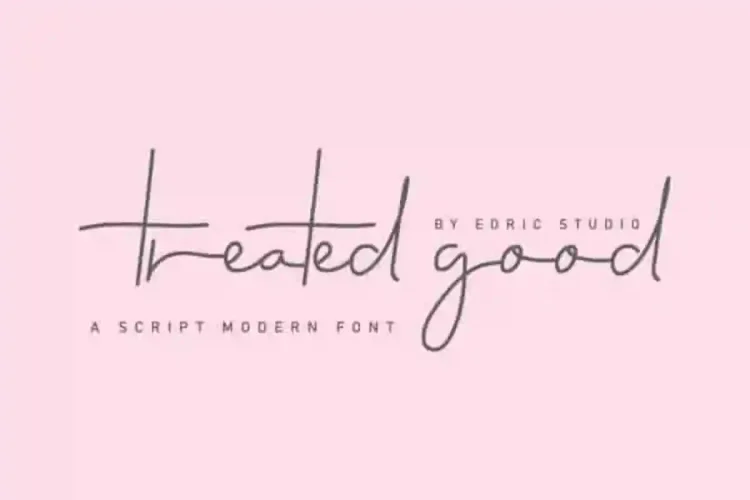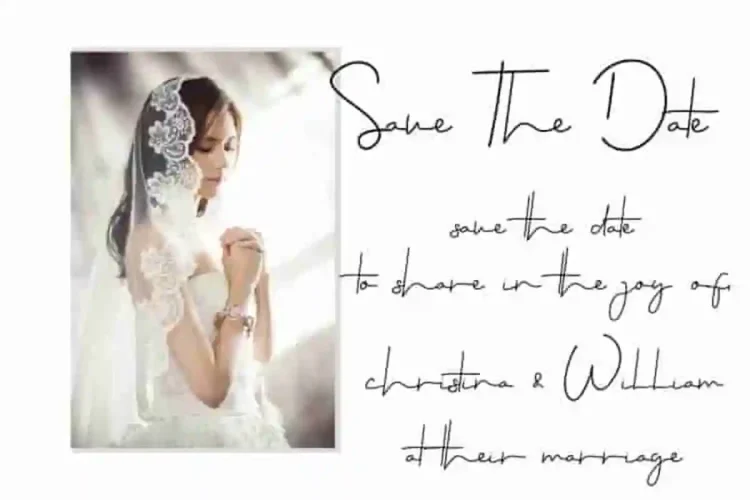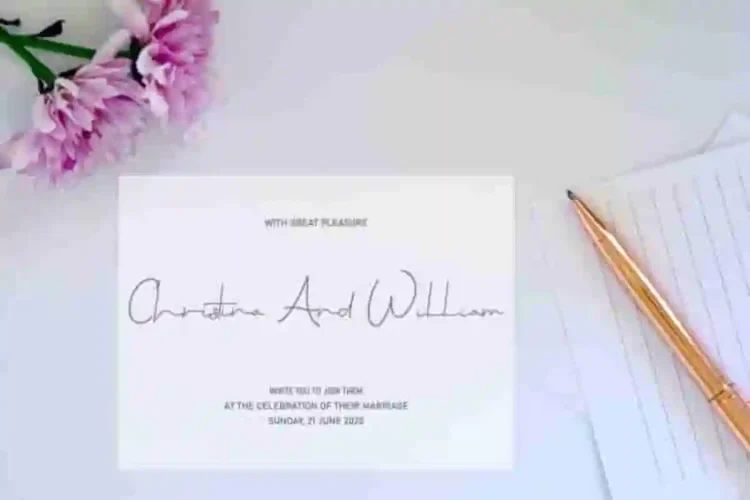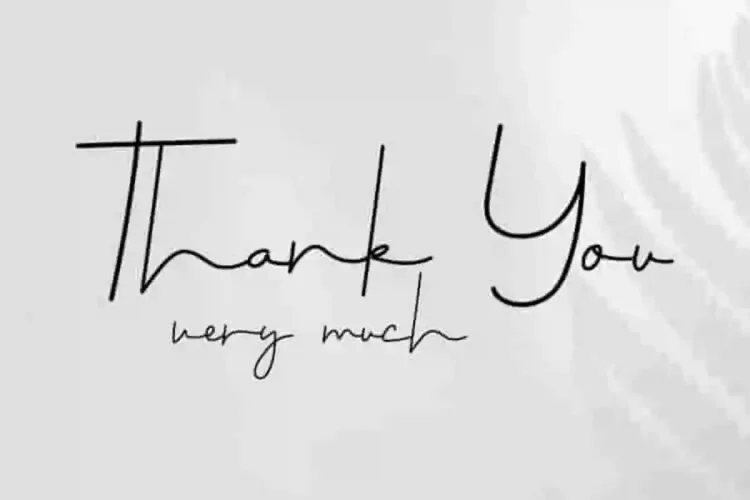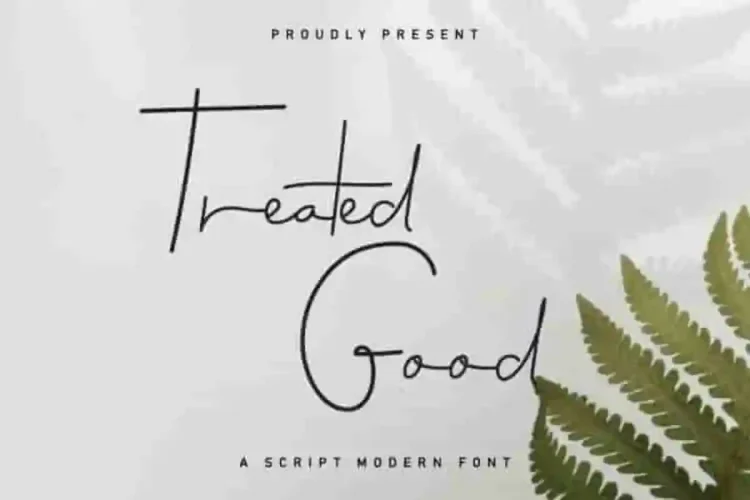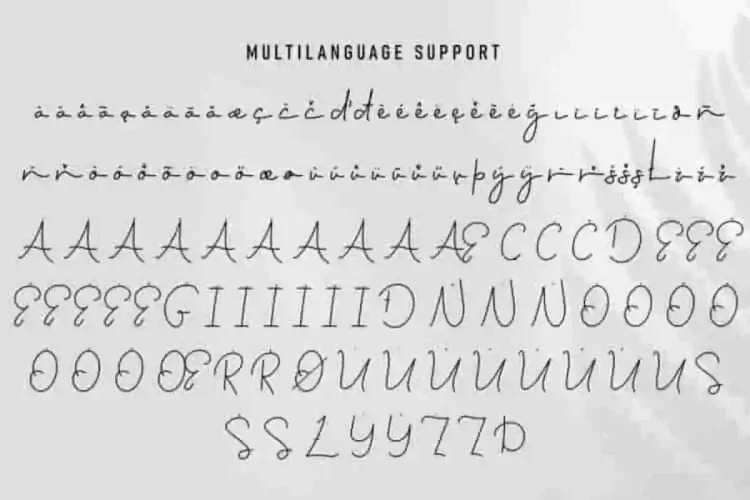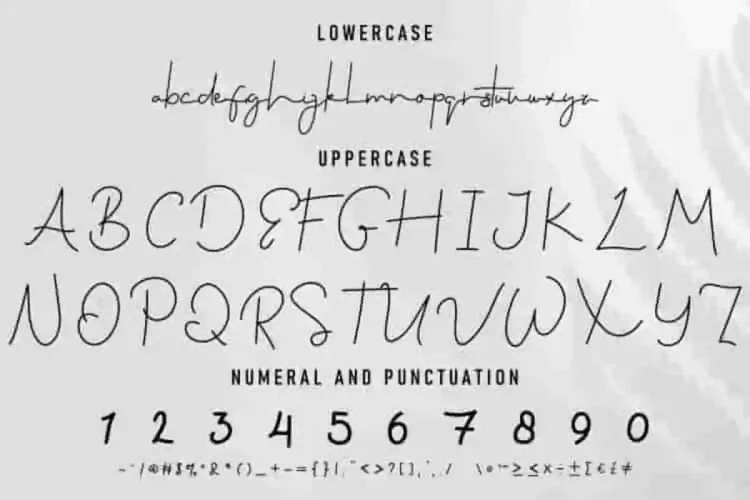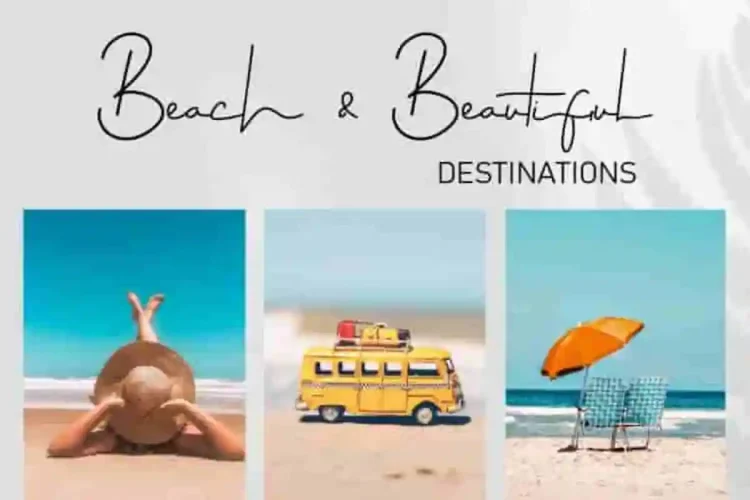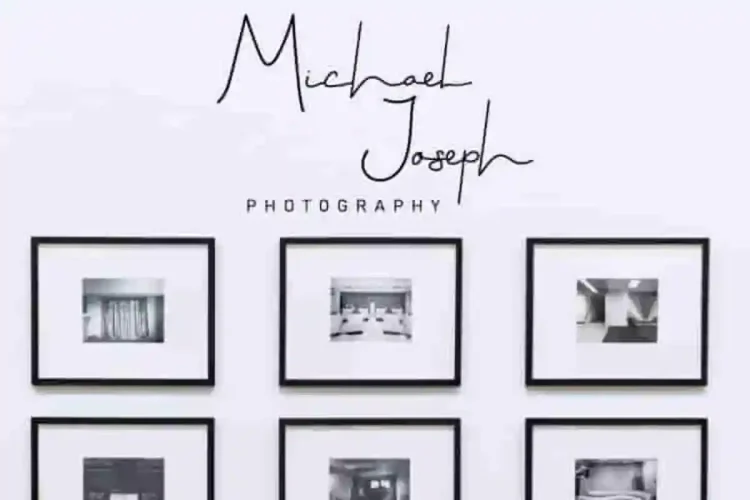
Treated Good Calligraphy Signature Font
This is a signature font, handcrafted from our Studio here in, Indonesia. The artists/designers of this beautiful tyeface is Saila and Sarah Suci.
Treated Good Calligraphy Signature Font is an exclusive calligraphy script typeface with signature style. This font has a stunning characters set, perfectly managed with well spaced and kerning.
Treated Good Calligraphy Signature Font will be great for any projects (with exntended license) including : branding, logo, stationery, business card, signage, flyer, brochure etc. Almost all industries will be match for this typeface: wedding, events, real estate, architect, law firm, florist, gardening, makeup artist, travel, hotel, musician etc.